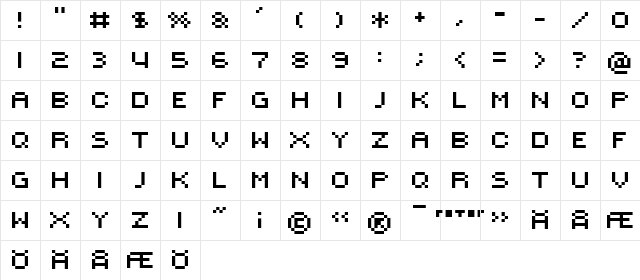
ROTORcap Extended Regular
Design Context for ROTORcap Extended Typeface
ROTORcap Extended offers clean, dependable letterforms without strong stylistic allegiance, making it a practical choice for designers who need flexibility.